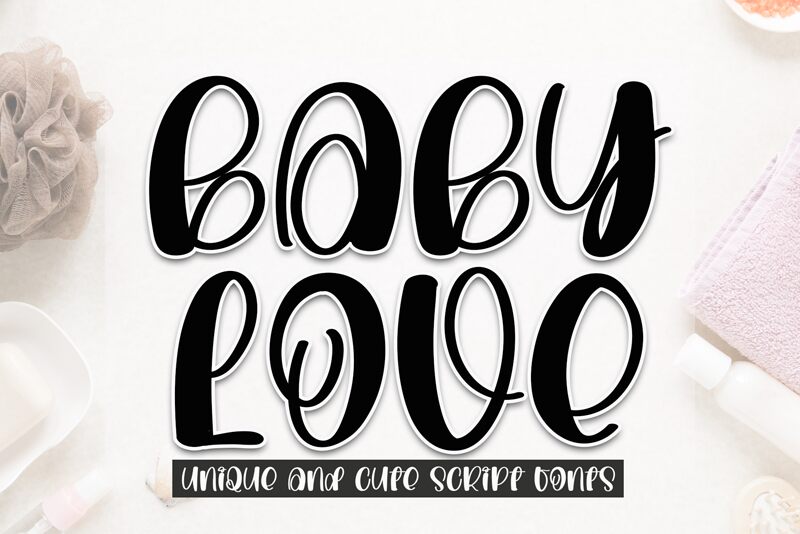
Baby Love font designed by creatype designer is a free script font with a cheerful, whimsical, and modern touch. The letters are expressive and flowing, and they hold an energetic yet inviting feel. As a stylish font, the informal font can be used when approaching readers informally and it matches the energy and visuals of a background image. Its informal design allows it to be more friendly to readers, without losing its charm.
With the easy-going and fun appearance of this font, creatives can use it for book covers of young readers, especially ones that present little girl adventures. Or they can make their websites more inviting to users by selecting Baby Love for their homepages. Social media platforms like Instagram and Facebook are essential for brands today, and they need to reach their audience in an easy way, allowing start-up businesses to create a memorable name, a logo, etc.
This font retains a classy calligraphic influence while feeling contemporary and fresh. Its versatility attracts a wide range of creative ideas, from letterheads and titles to stationery.